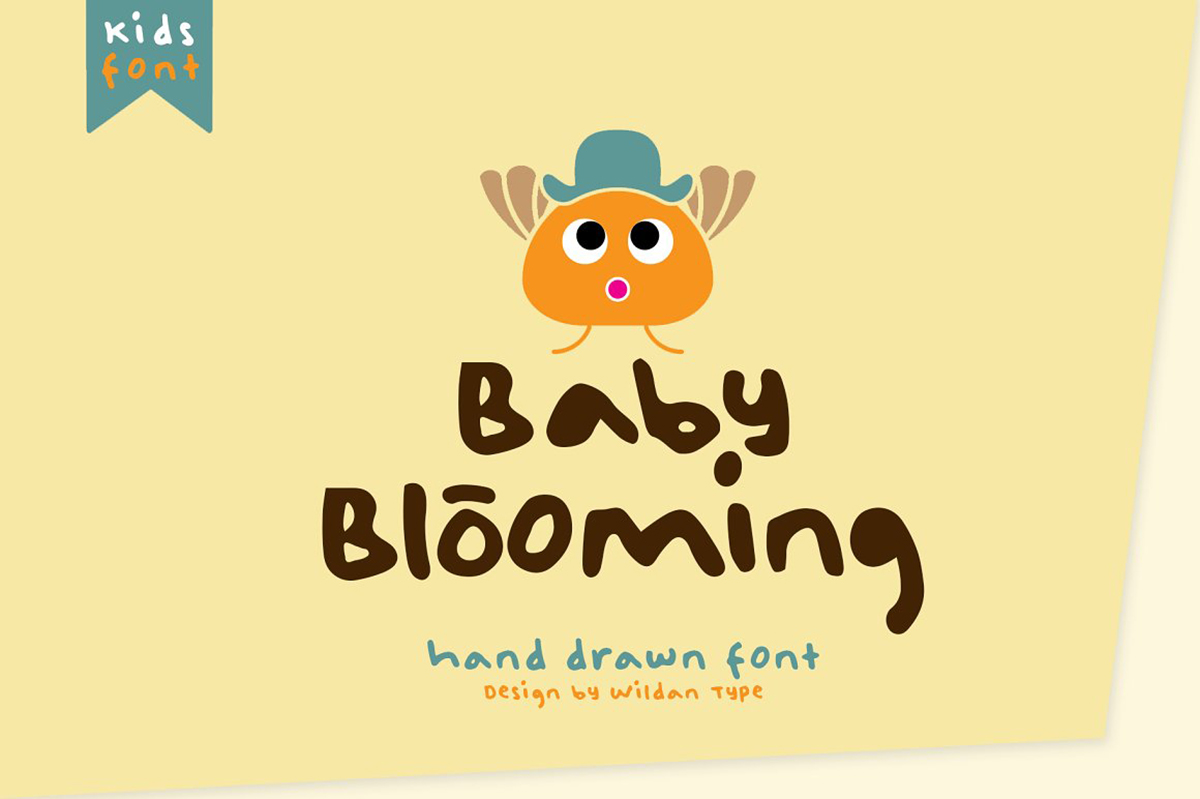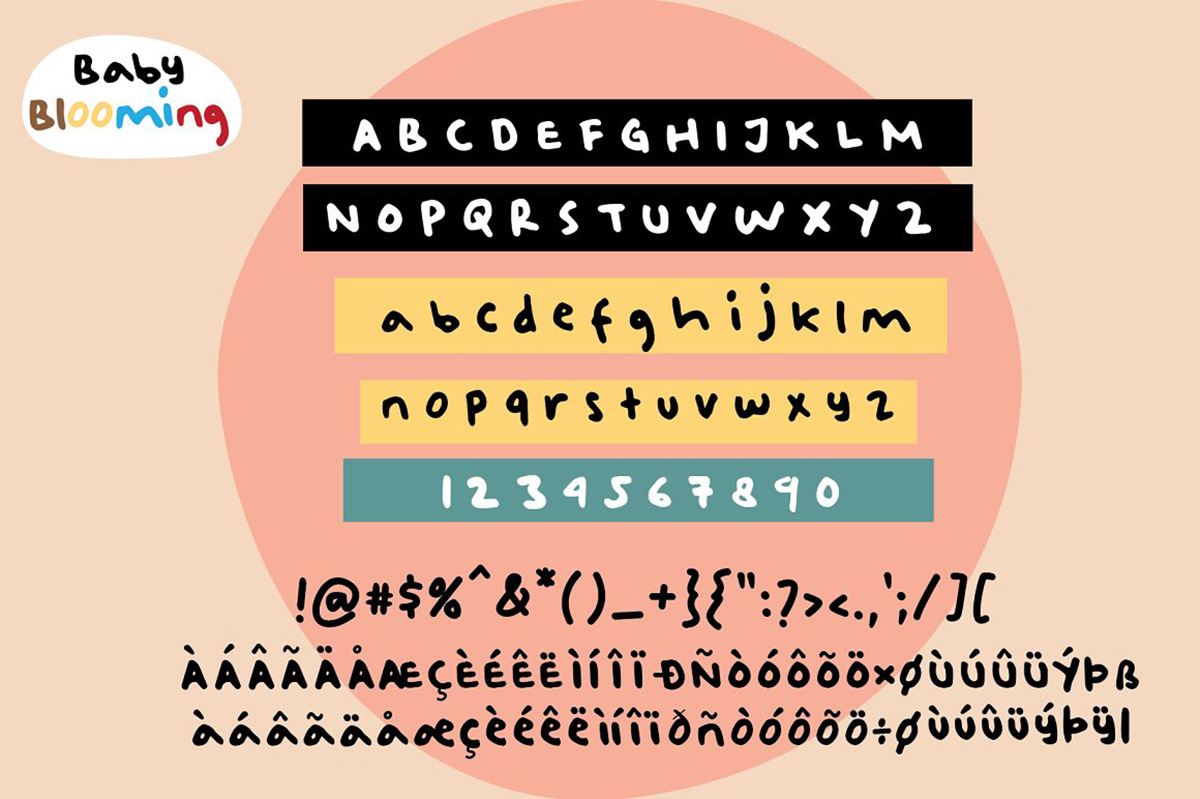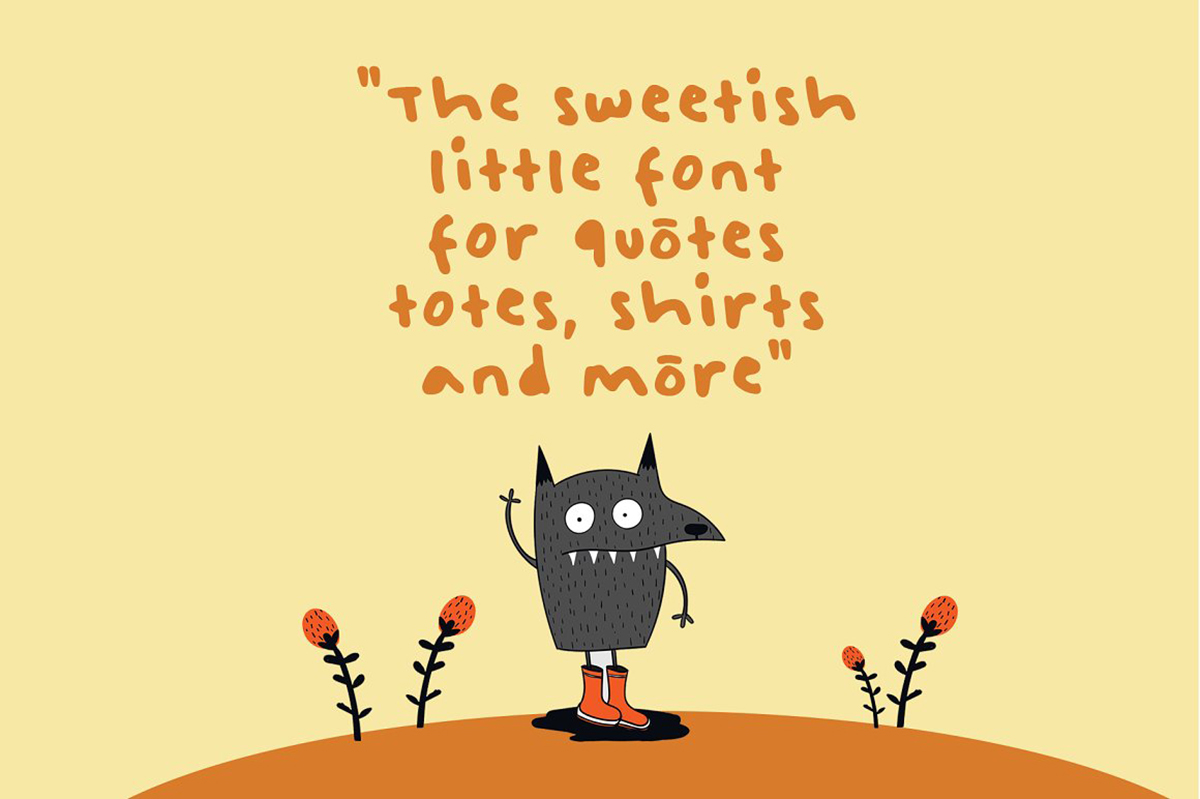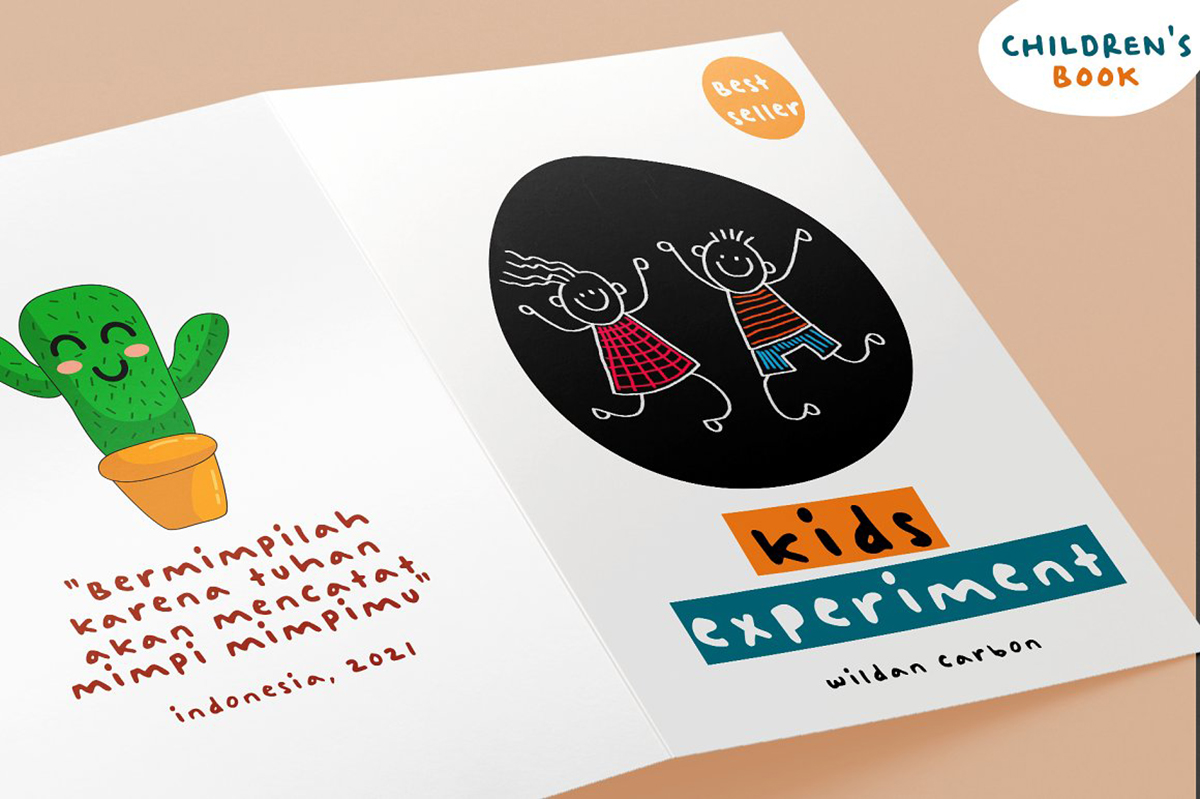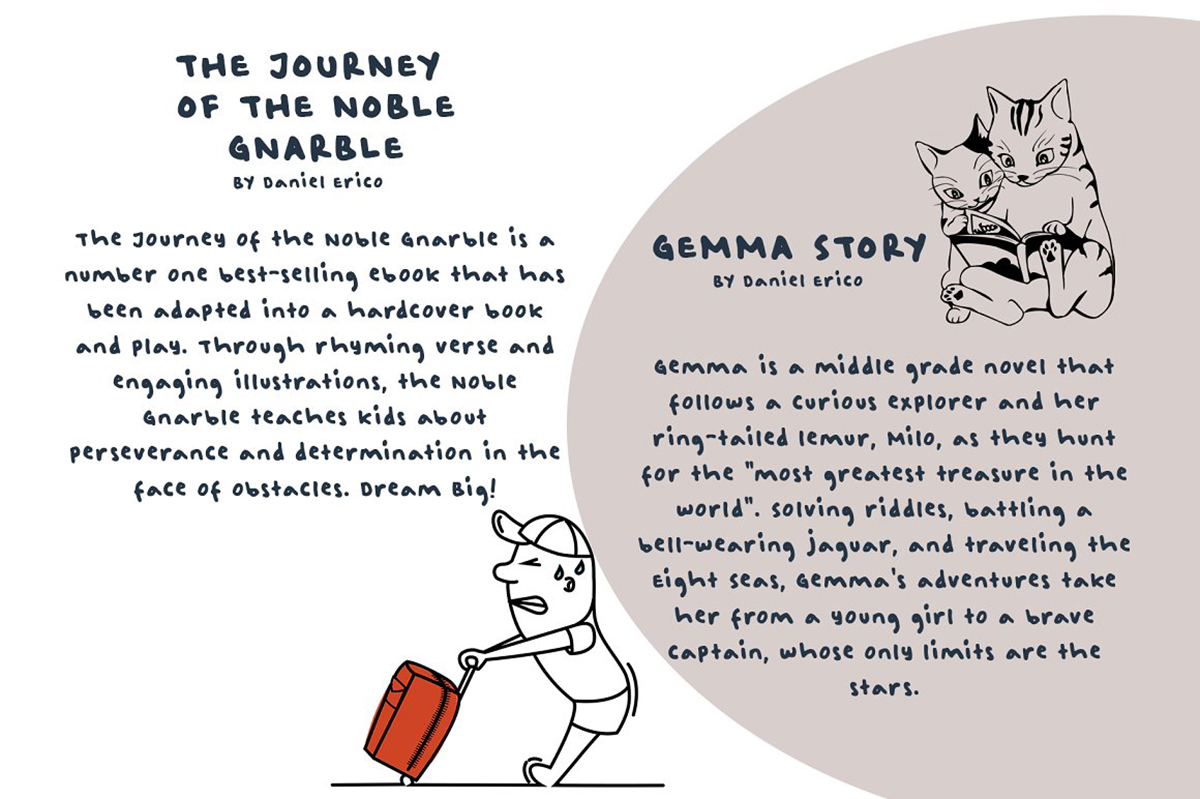
Baby Blooming Free Font
Baby Blooming Free Font is an adorable, playful, and whimsical display font that exudes cuteness and fun. This font is designed to capture the essence of joy and authenticity, making it an ideal choice for children’s activities, school projects, and beyond. Let Baby Blooming bring a touch of magic to your designs, creating a delightful and captivating experience for young audiences. Embrace the charm of Baby Blooming and watch your creations bloom with creativity and wonder. This free typeface was designed by a talented Wildan Syah. If you like it don’t forget to check out the full version.